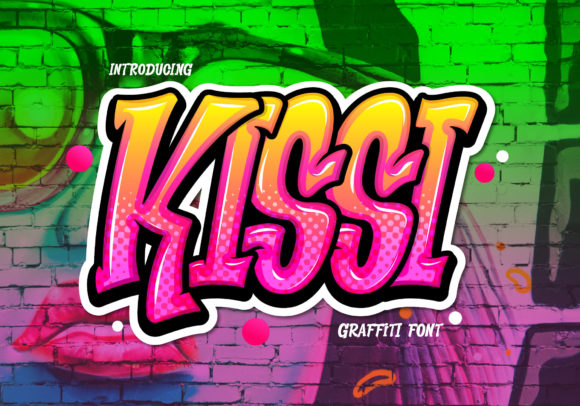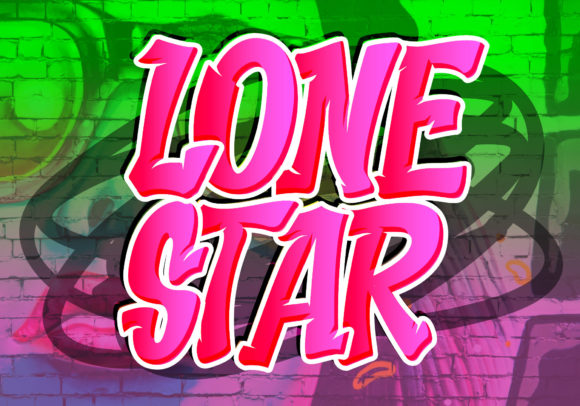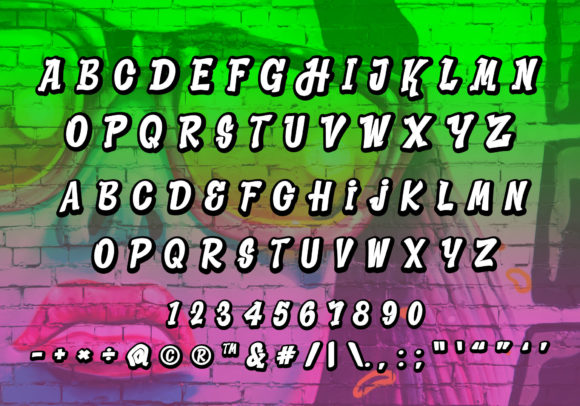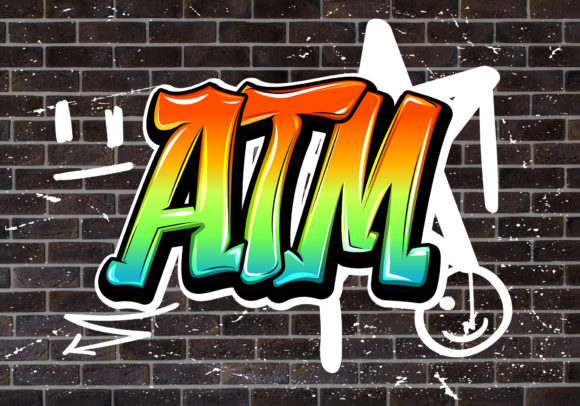
Kissi is a cool and graffiti-style display font featuring an impressive street art vibe. This font is suitable for designs such as t-shirts, sportswear, logos, advertisements, clothing, and more.
Kissi Font